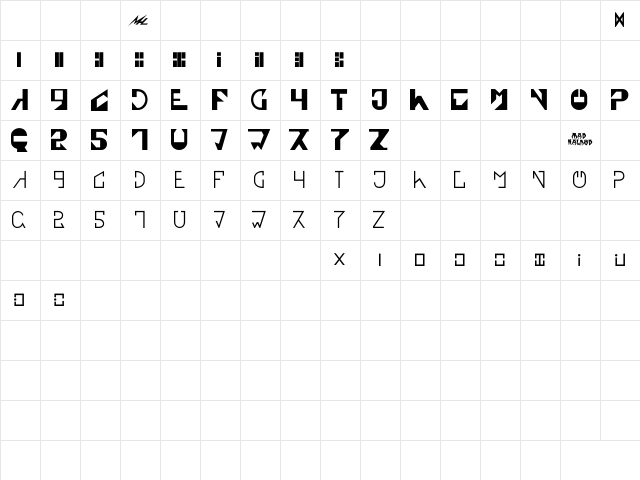
Astradan_Black Bold
Design Context for Astradan_Black
Astradan_Black is a composed and adaptable typeface that performs quietly and consistently across a wide range of design contexts. Its bold stroke weight gives it real presence on the page.